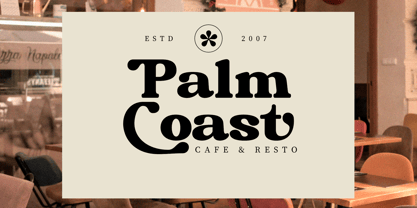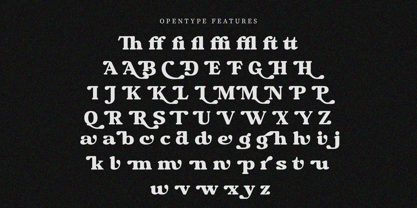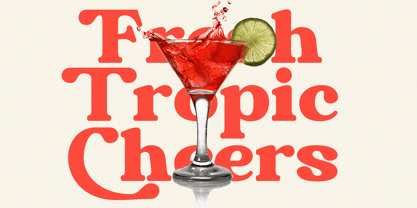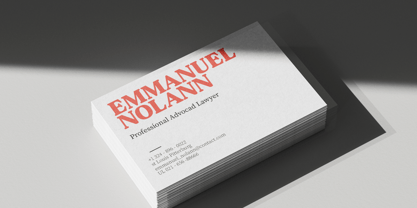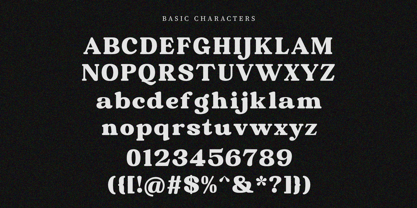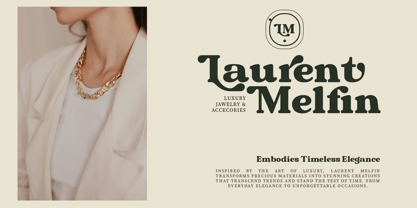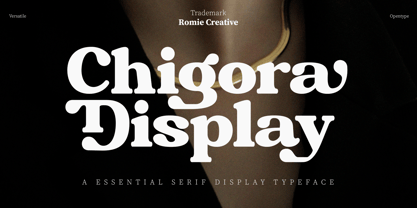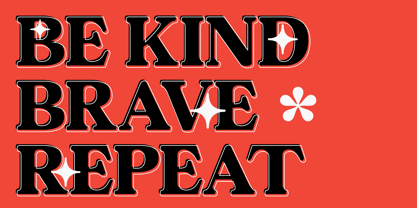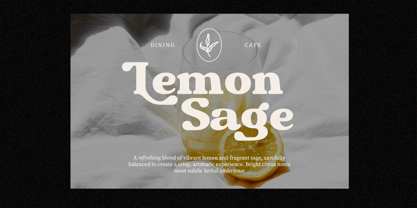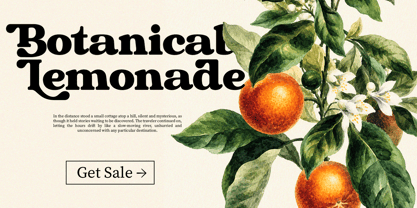
Chigora Display
Die Schriftfamilie Chigora Display wurde von Romi Rahmadi entworfen und von Romie Creative veröffentlicht. Chigora Display enthält 18 Stile und Familienpaketoptionen. Mehr über diese Familie
Chigora Display is a bold and elegant serif display typeface crafted to make a lasting impression. Featuring high-contrast strokes, soft rounded terminals, and beautifully sculpted letterforms, it combines timeless sophistication with a contemporary aesthetic. Designed for impactful headlines, luxury branding, editorial layouts, packaging, fashion campaigns, logos, and premium visual identities, Chigora Display delivers exceptional readability while exuding confidence, refinement, and artistic character. Its distinctive personality makes it an excellent choice for projects that demand both classic charm and modern elegance.
Designer: Romi Rahmadi
Foundry: Romie Creative